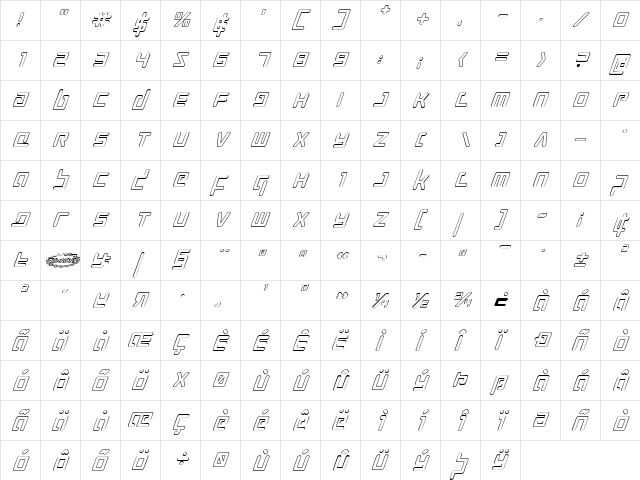
Prokofiev Outline Italic Italic
Design Context for Prokofiev Outline Italic Typeface
Prokofiev Outline Italic is built around its visual character rather than neutral utility — its distinctive forms are designed to make an impression at display sizes. Its italic angle brings a sense of urgency and motion to the letterforms.
Font Pairing: Pair with a clean neutral sans-serif for body copy to let Prokofiev Outline Italic's character lead without overwhelming the composition.
Pro Tip: Treat Prokofiev Outline Italic as the centrepiece of your typographic hierarchy. One strong heading set in a decorative face can carry an entire layout.